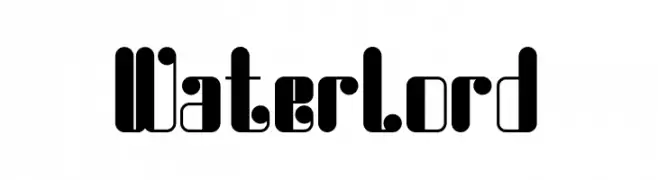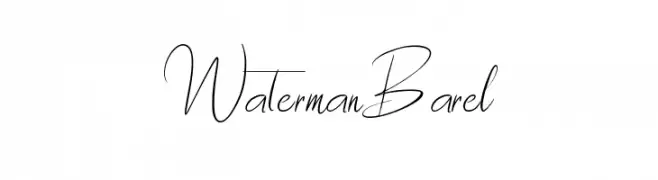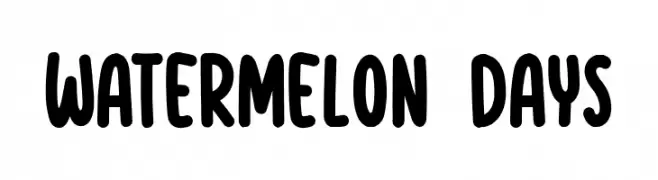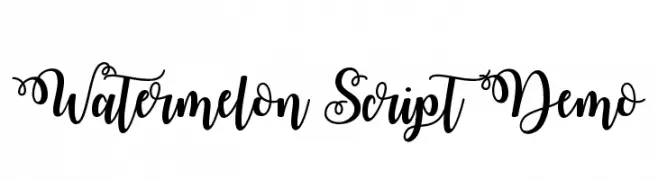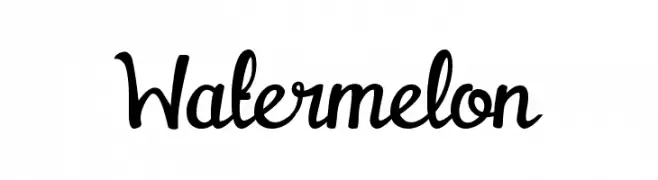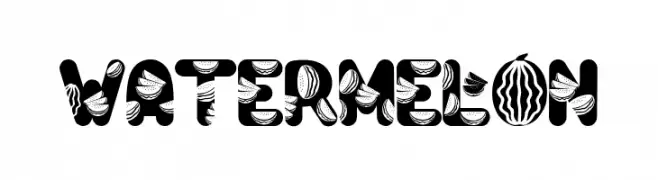
A bold, three-dimensional serif font with a vintage, embossed style.
A bold, geometric font with rounded terminals and a modern aesthetic.
A graceful, fluid script font with an elegant handwritten style.
A bold, geometric font with a modern, industrial style.
A bold, decorative font with watermelon slice patterns in each character.
A playful, bold script font with flowing, cursive letterforms.
A playful, bold, and rounded font with a hand-drawn feel.
A bold, playful font with rounded, hand-drawn characters.
A playful and whimsical script font with decorative loops and swirls.
A playful and whimsical script font with decorative swirls and a hand-drawn feel.